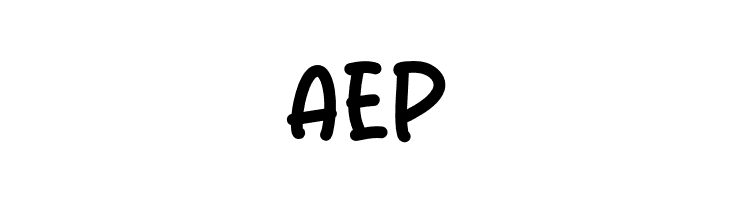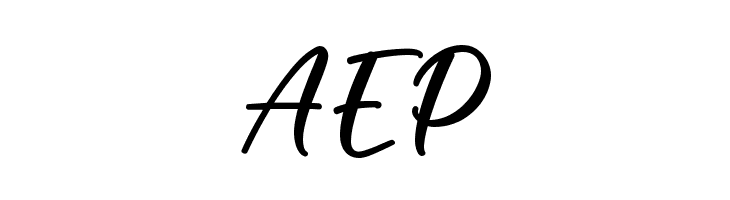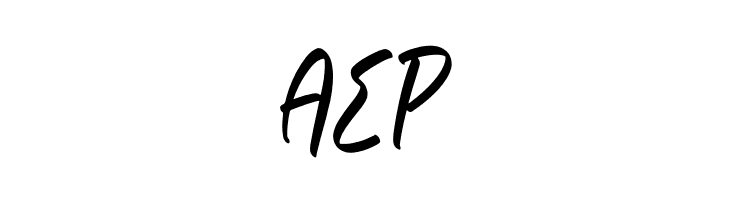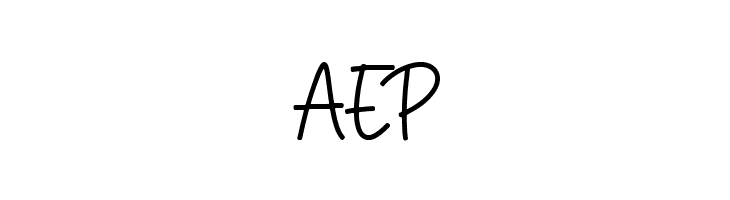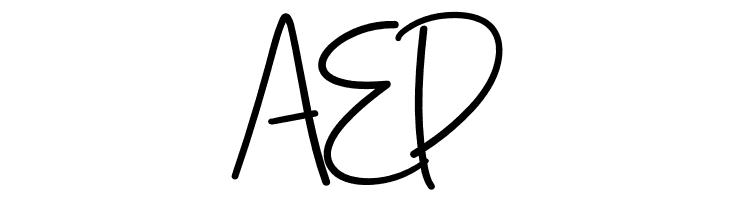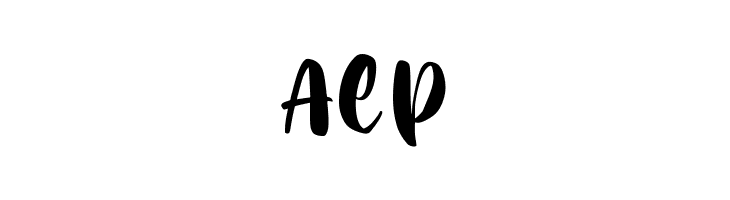
Casual, rounded handwritten font with a friendly, informal style.
A modern, handwritten script font with smooth, connected strokes.
Energetic handwritten script with casual, expressive strokes.
Casual handwritten font with rounded, playful forms.
Casual handwritten font with playful, rounded strokes.
Elegant, thin handwritten script resembling a personal signature.
A whimsical, handwritten script with tall, narrow, and flowing letterforms.
Bold, rounded handwritten font with a playful and friendly style.
A lively handwritten font with tall, narrow, and expressive characters.
Bold handwritten script with playful, energetic strokes.